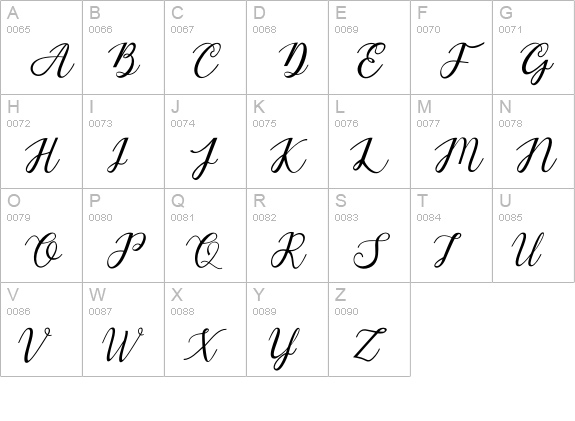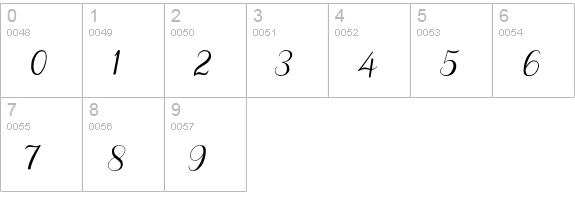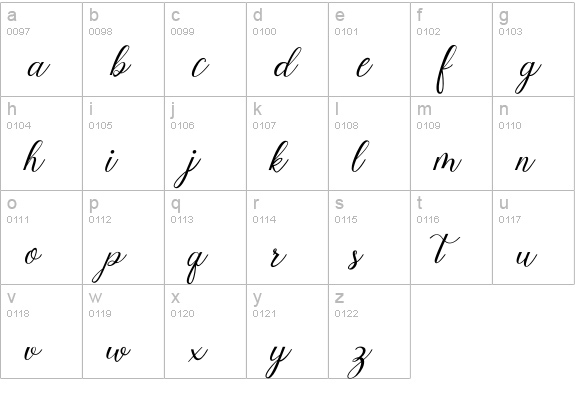
Goesitox Modern Calligraphy Font Details
Introducing Goesitox Modern Calligraphy font, a stunning and elegant typeface that exudes sophistication and charm. This font features beautiful and intricate calligraphic strokes that add a touch of luxury to any design project. With its flowing and graceful letterforms, Goesitox Modern Calligraphy is perfect for branding, wedding invitations, logos, and more.